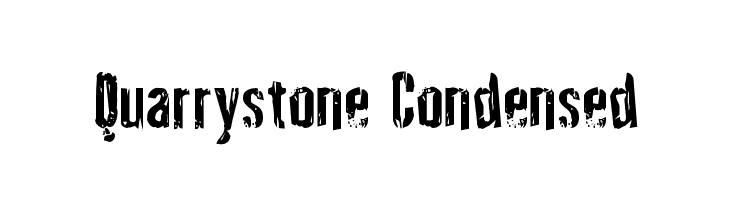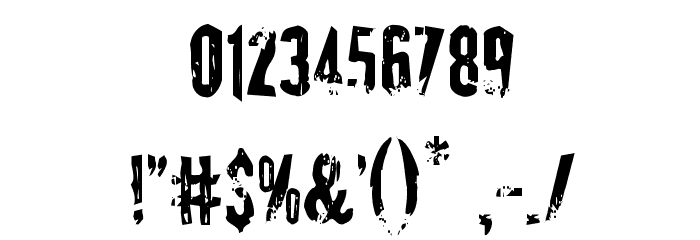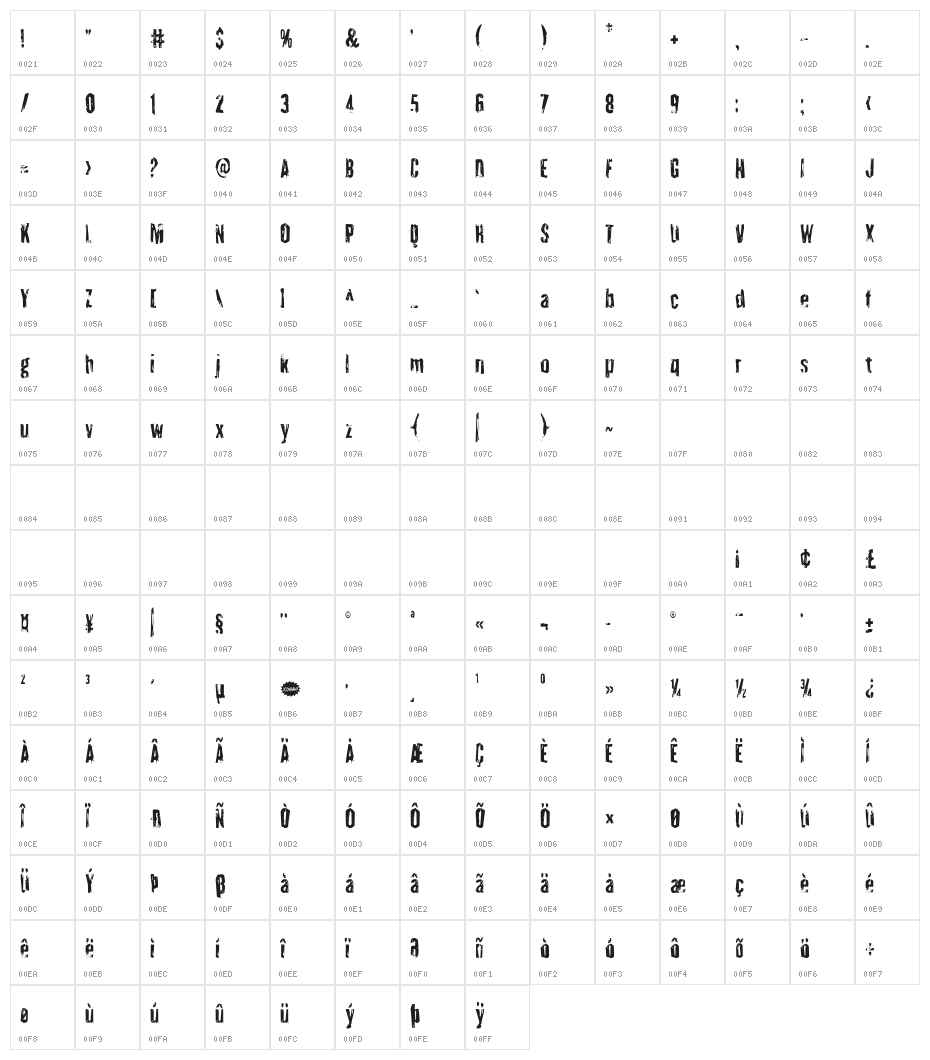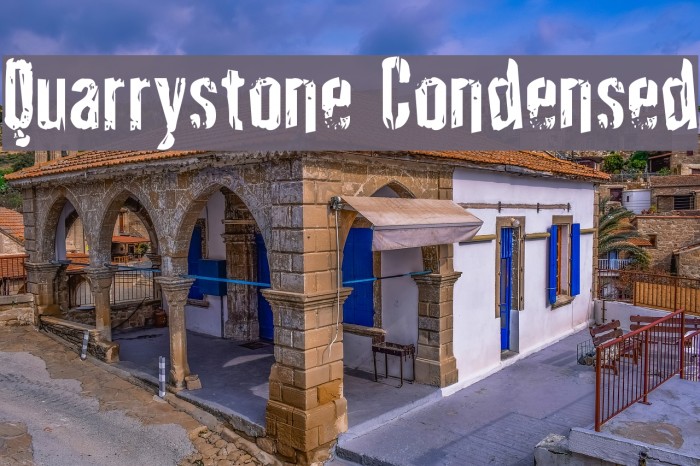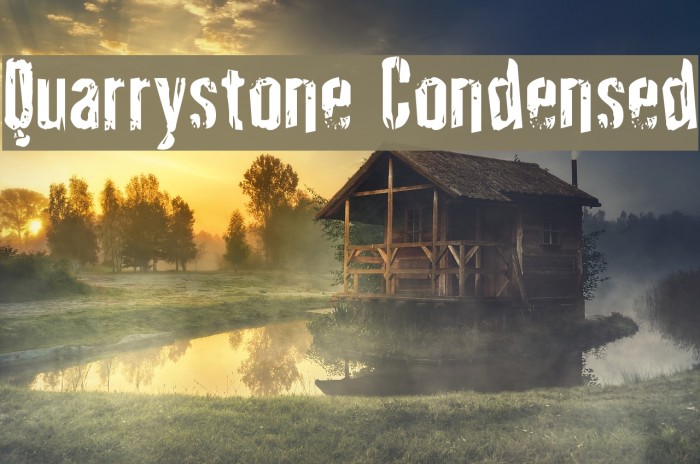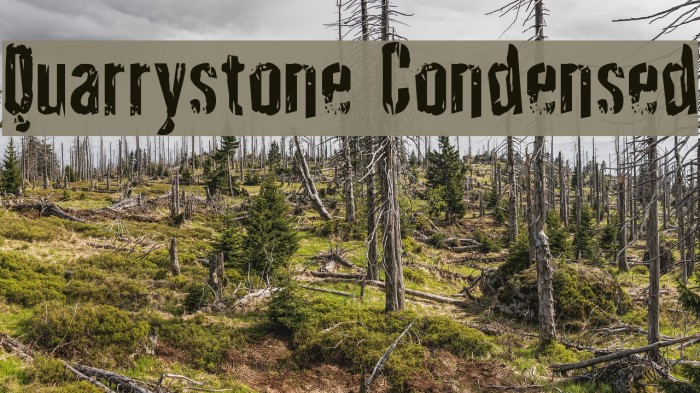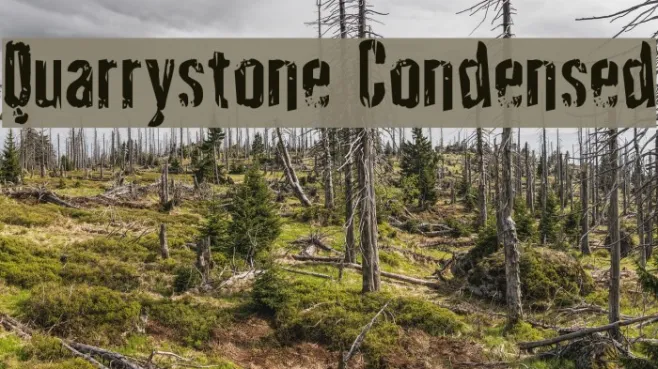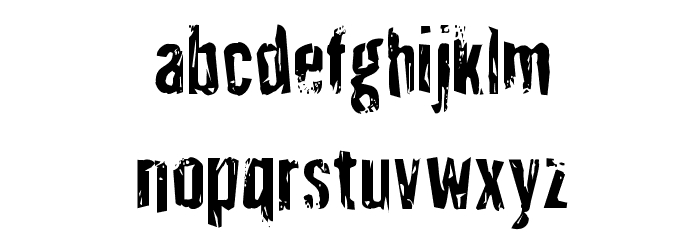
Quarrystone Condensed Font
Quarrystone Condensed Description
This font features a rugged, distressed appearance with a bold and impactful style. The characters are irregular and textured, giving them a weathered, stone-like effect. The uppercase and lowercase letters maintain a consistent height, while the numbers and special characters follow the same distressed theme. This font's condensed nature allows for efficient use of space, making it suitable for designs that require a strong visual impact without occupying too much room. The unique texture adds a dynamic and edgy feel, perfect for projects that aim to convey a sense of rawness or authenticity.
| Proposed Projects | Ideal for posters, album covers, branding for outdoor or adventure-themed products, and any design needing a gritty, authentic look. |